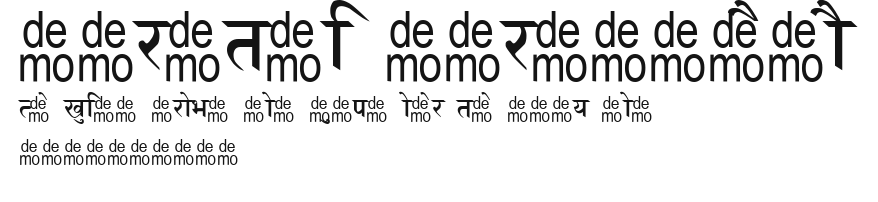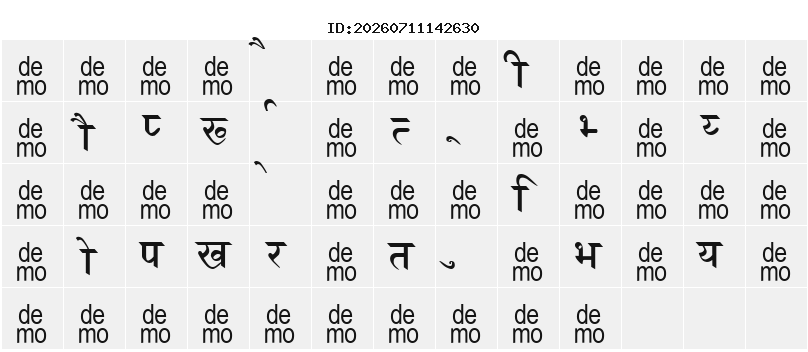
Marathi Saral-DEMO Preview
• Font Name: Marathi Saral-DEMO
• Full Font Name: Marathi Saral-DEMO
About Marathi Saral-DEMO.ttf
Marathi Saral-DEMO.ttf is a modern, elegant sans-serif font designed for ultimate readability and visual harmony. Perfect for branding, headlines, web design, and print materials.